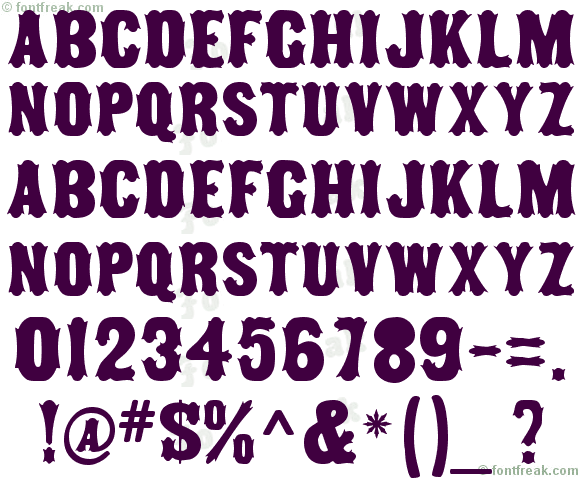
Tuscan MF Narrow
The Tuscan font by Richard W. Mueller is a striking display typeface that falls into the decorative category. Known for its unique character, this font showcases a distinct style that sets it apart in the typographic landscape. Its bold, exaggerated letterforms often feature contrasting stroke weights, providing an eye-catching appearance that commands attention. The spacing between characters is thoughtfully designed to ensure readability while maintaining the flamboyant aesthetic that Tuscan fonts are celebrated for. Decorative elements, such as the serifs and intricate curves, add to its artistic flair, making it a perfect choice for creative projects.
Tuscan is particularly well-suited for a variety of applications. It shines in wedding invitations, where its ornate design can elevate the overall elegance of the stationery. Movie posters also benefit from its dramatic presence, drawing viewers in with its unique style. Restaurant menus can leverage this font to evoke a sense of character and charm, making the dining experience feel more inviting. Additionally, Tuscan works well for branding materials, helping small business owners create a memorable visual identity that stands out in competitive markets.
What makes the Tuscan font truly stand out is its ability to blend artistry with functionality. Its distinctive style not only enhances visual appeal but also serves to communicate a sense of creativity and uniqueness, making it an invaluable tool for any designer's toolkit.